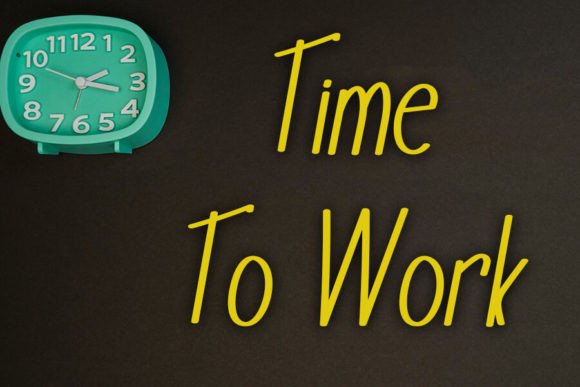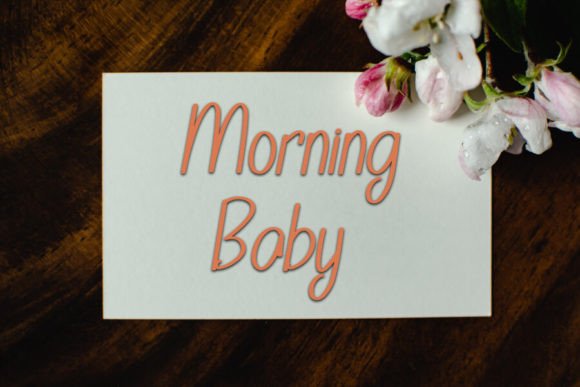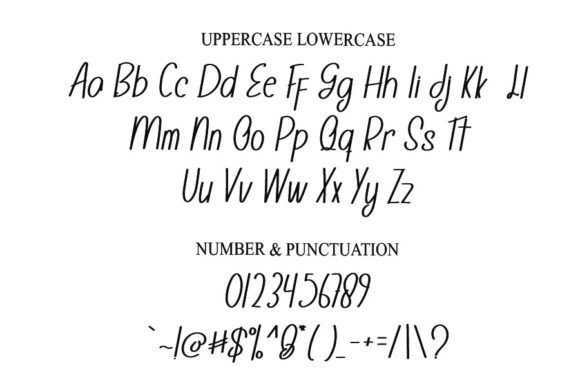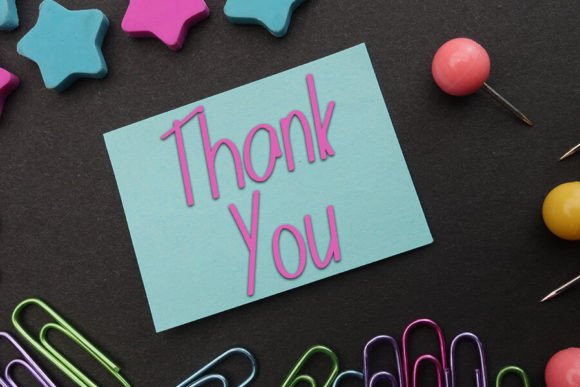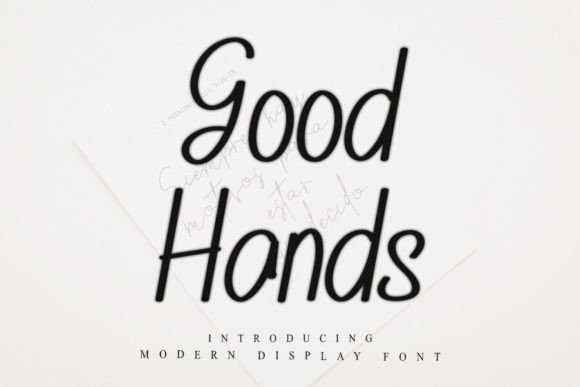
Introducing Good Hands Font: The Perfect Holiday Companion for Designers and Crafters
The holiday season is upon us, and with it comes the need for designs that capture the spirit of joy, cheer, and festivity. If you’re a designer or crafter looking for the perfect font to add a touch of magic to your holiday projects, look no further than Good Hands Font. This delightful typeface is specifically designed to bring a smile to your face and a twinkle to your designs.
A Festive and Happy Typeface
Good Hands Font is a festive and happy typeface that embodies the essence of the holiday season. Its decorative elements and unique flair make it the perfect addition to any design that needs a dash of charm and whimsy. Whether you’re creating greeting cards, gift labels, or holiday-themed projects, this font is sure to bring a cheerful and nostalgic atmosphere to your words.
Good Hands Font is designed with designers and crafters in mind. Its PUA (Private Use Area) coding makes it easy to access all the amazing glyphs and ligatures, allowing you to create stunning designs with minimal effort. Whether you’re a seasoned pro or just starting out, this font is perfect for anyone looking to add a touch of holiday magic to their projects.
Key Features of Good Hands Font
- Festive and Happy Design: Good Hands Font is specifically designed to capture the spirit of the holiday season, making it perfect for holiday-themed projects.
- Decorative Elements: The font features decorative elements and unique flair, adding a touch of charm to your designs.
- PUA Coded: With PUA coding, you can easily access all the amazing glyphs and ligatures, making it simple to create stunning designs.
- Perfect for Various Projects: Good Hands Font is ideal for greeting cards, gift labels, holiday-themed projects, and more.
Tips for Using Good Hands Font
To get the most out of Good Hands Font, here are a few tips:
- Pair with Other Fonts: Experiment with pairing Good Hands Font with other fonts to create a unique and eye-catching design.
- Use for Headings and Titles: The font’s decorative elements make it perfect for headings and titles, adding a touch of festivity to your designs.
- Experiment with Colors: Good Hands Font looks great in a variety of colors, so don’t be afraid to experiment and find the perfect hue for your design.
Good Hands Font is the perfect addition to any designer’s or crafter’s toolkit. Its festive and happy design, decorative elements, and PUA coding make it the ideal choice for holiday-themed projects. Whether you’re creating greeting cards, gift labels, or holiday-themed projects, this font is sure to bring a cheerful and nostalgic atmosphere to your words. So why wait? Download Good Hands Font today and start adding a touch of holiday magic to your designs!